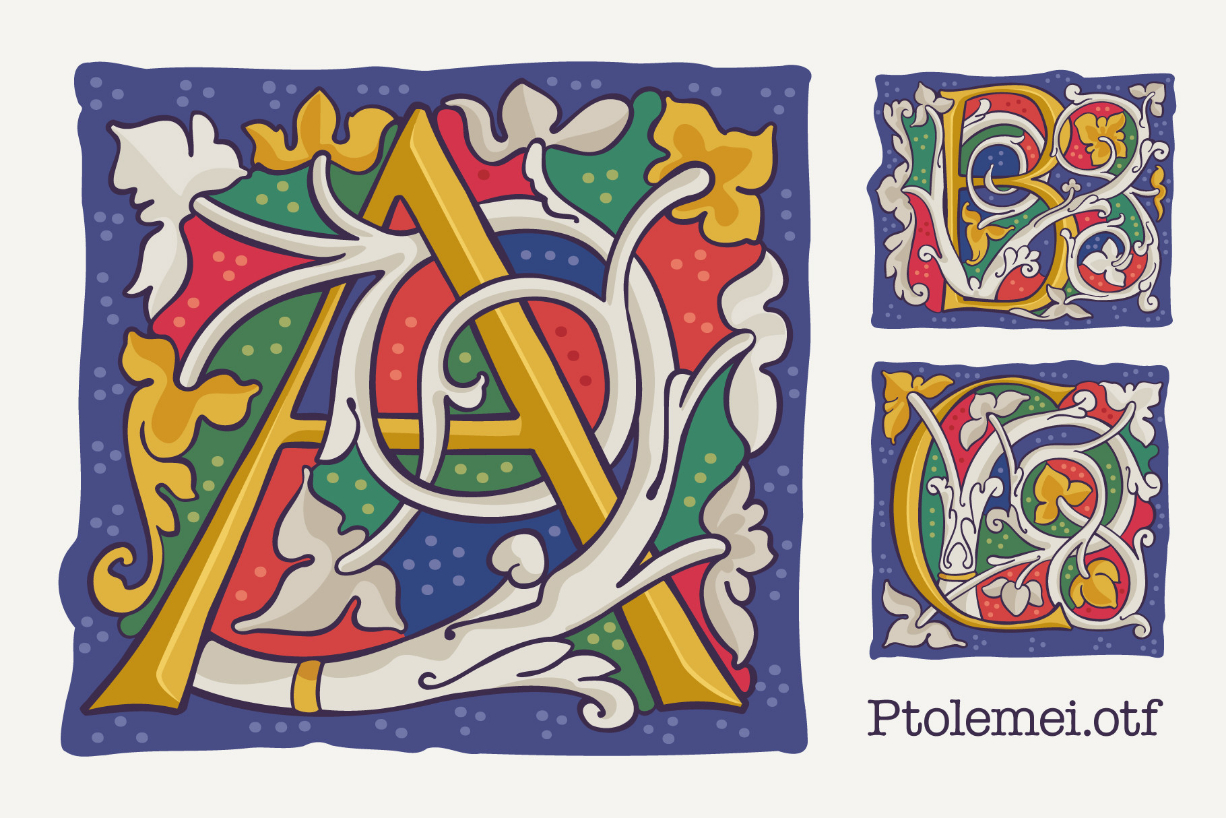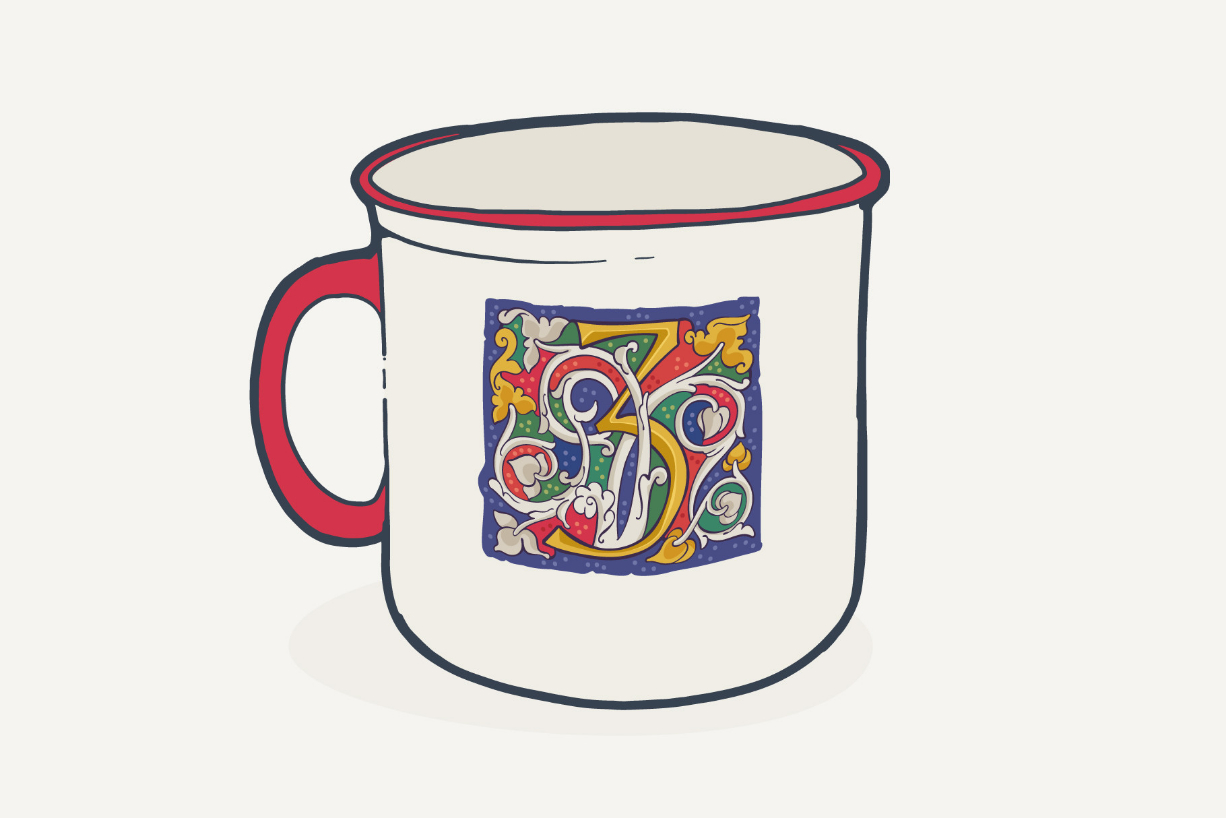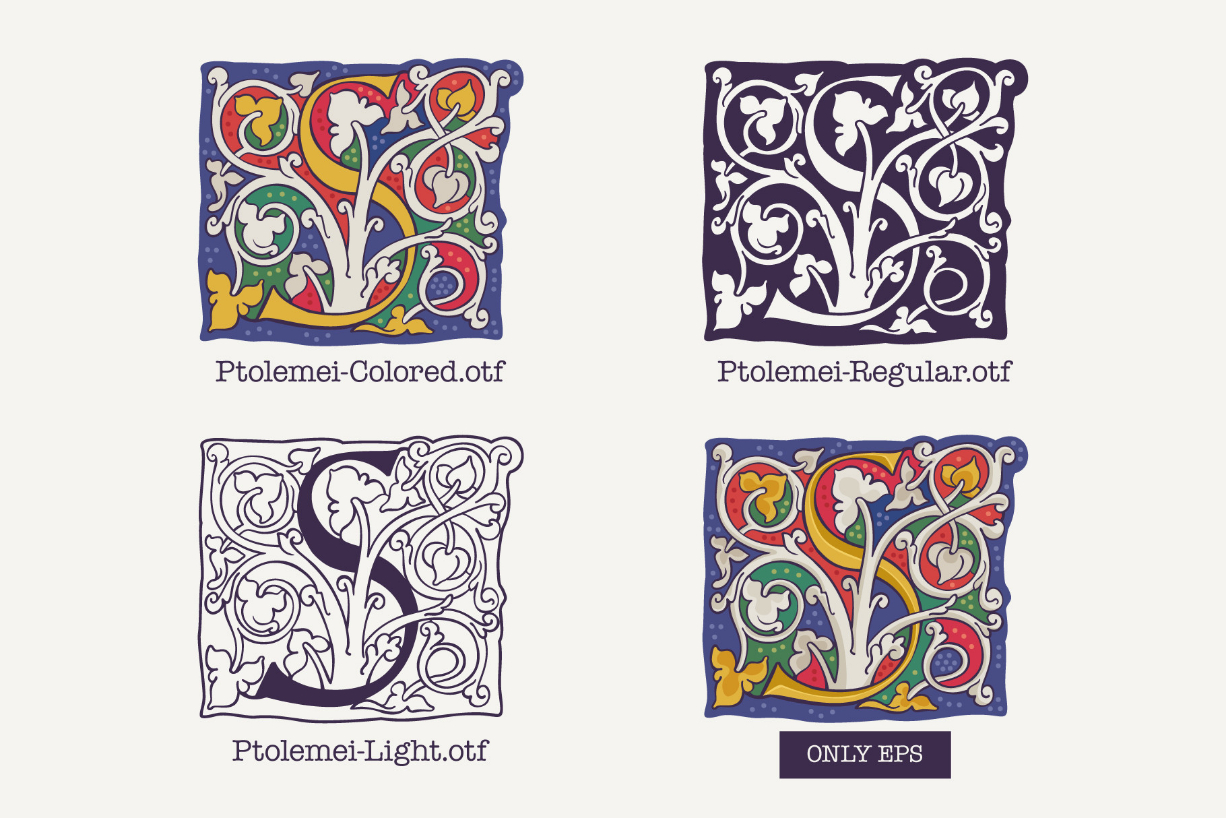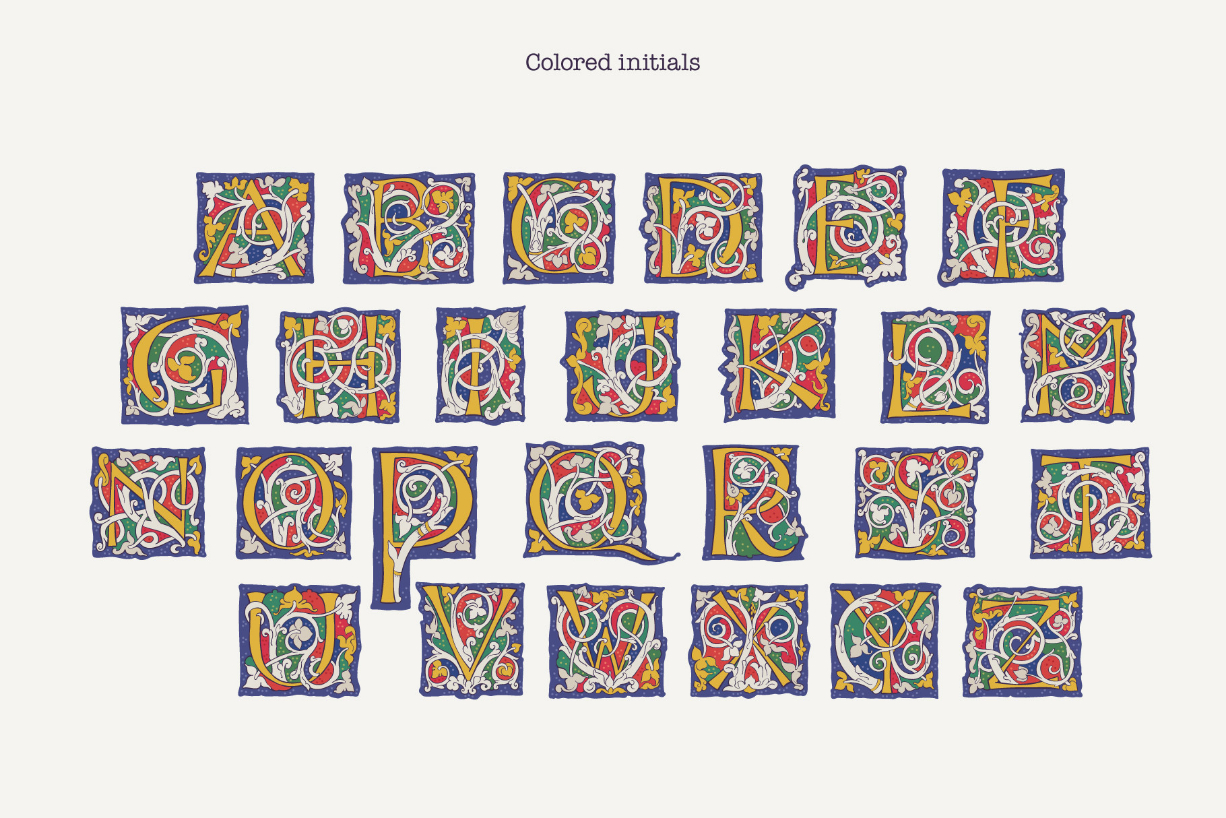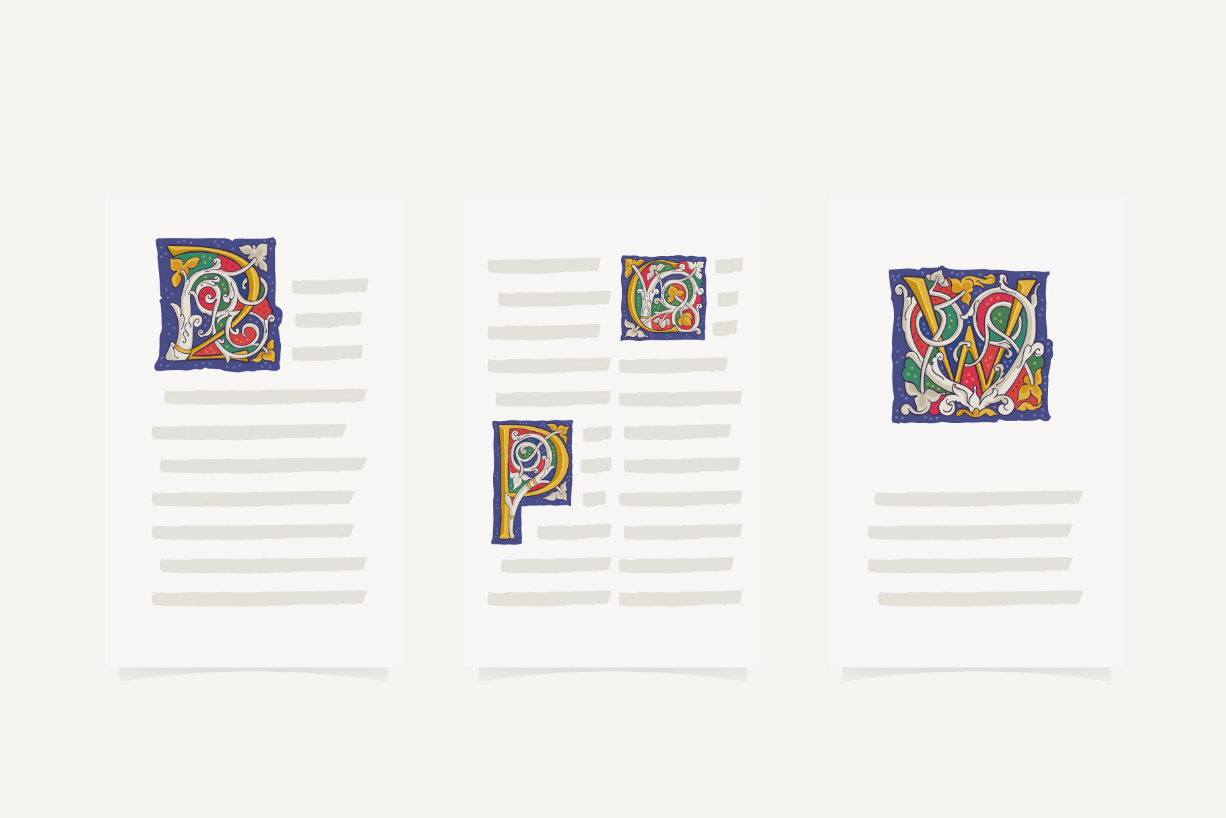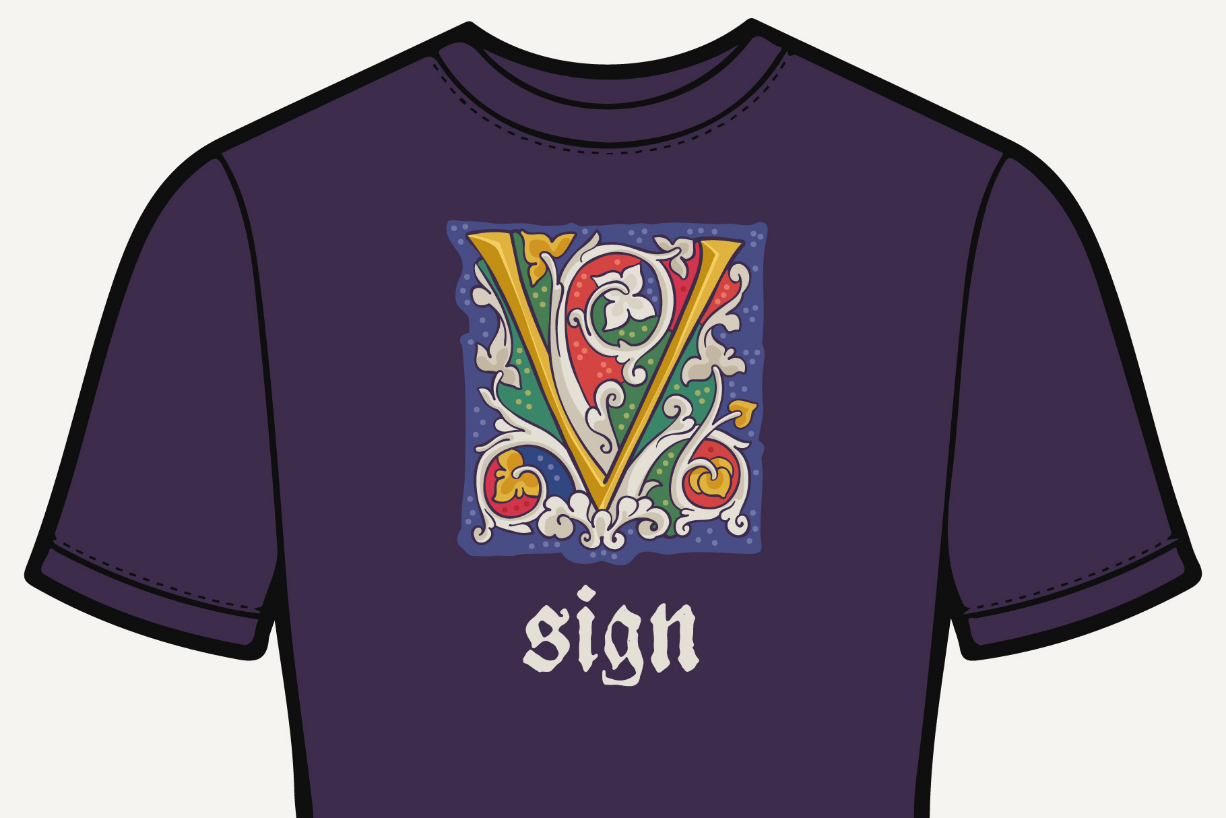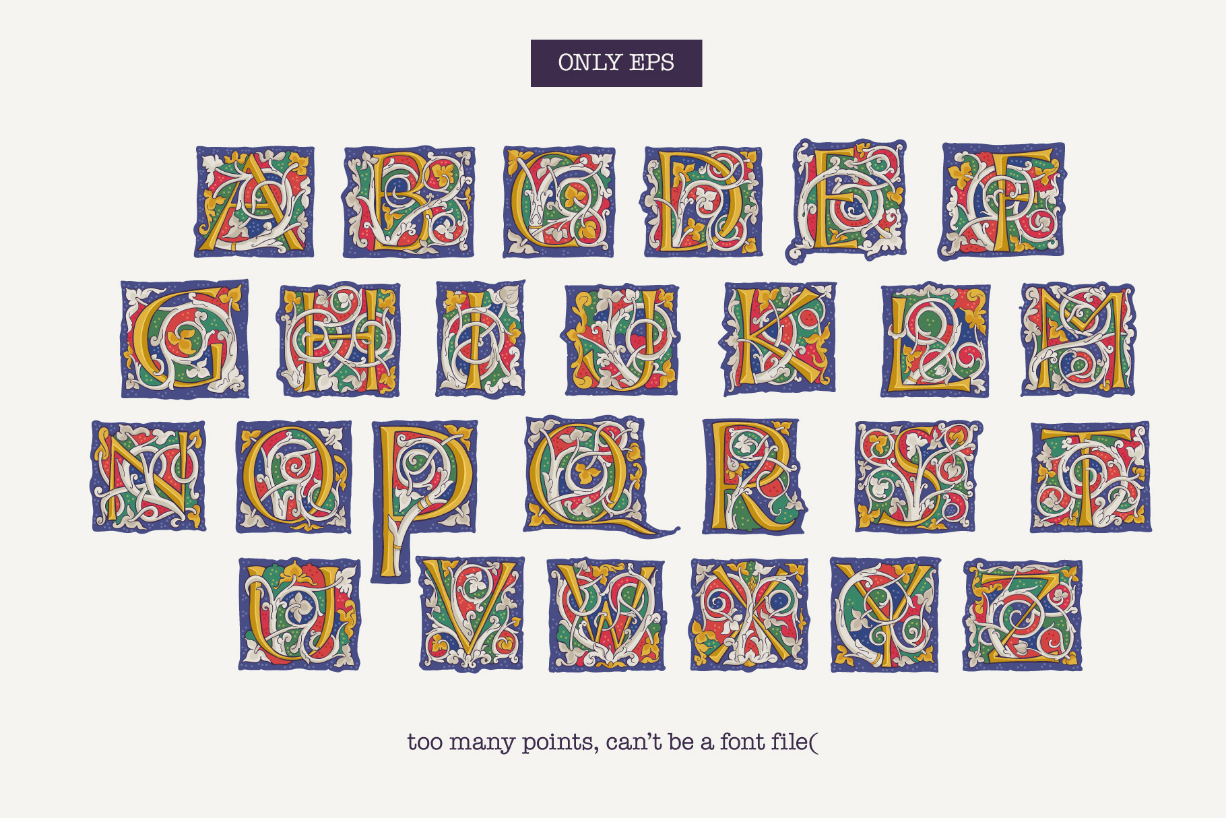
Ptolemei Font
About Ptolemei Font
Ptolemei is a classic and ancient font that exudes elegance and tradition. With its intricate and ornate details, this font is perfect for creating monograms and designs that evoke a sense of history and prestige. Embrace the timeless beauty of Ptolemei and create truly unforgettable designs.